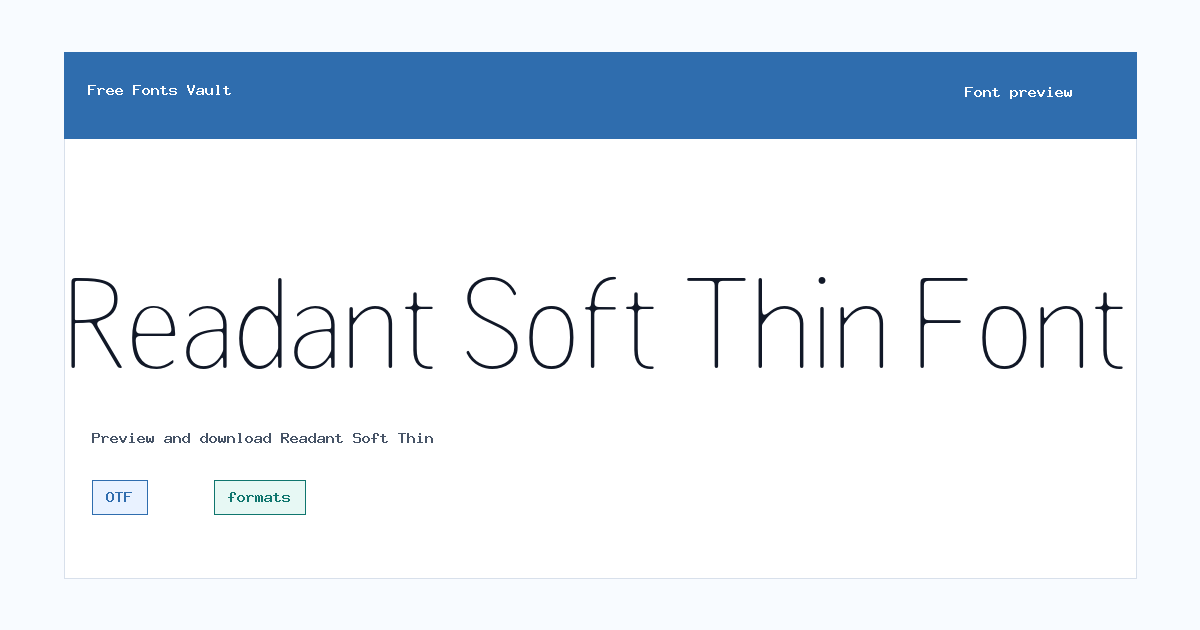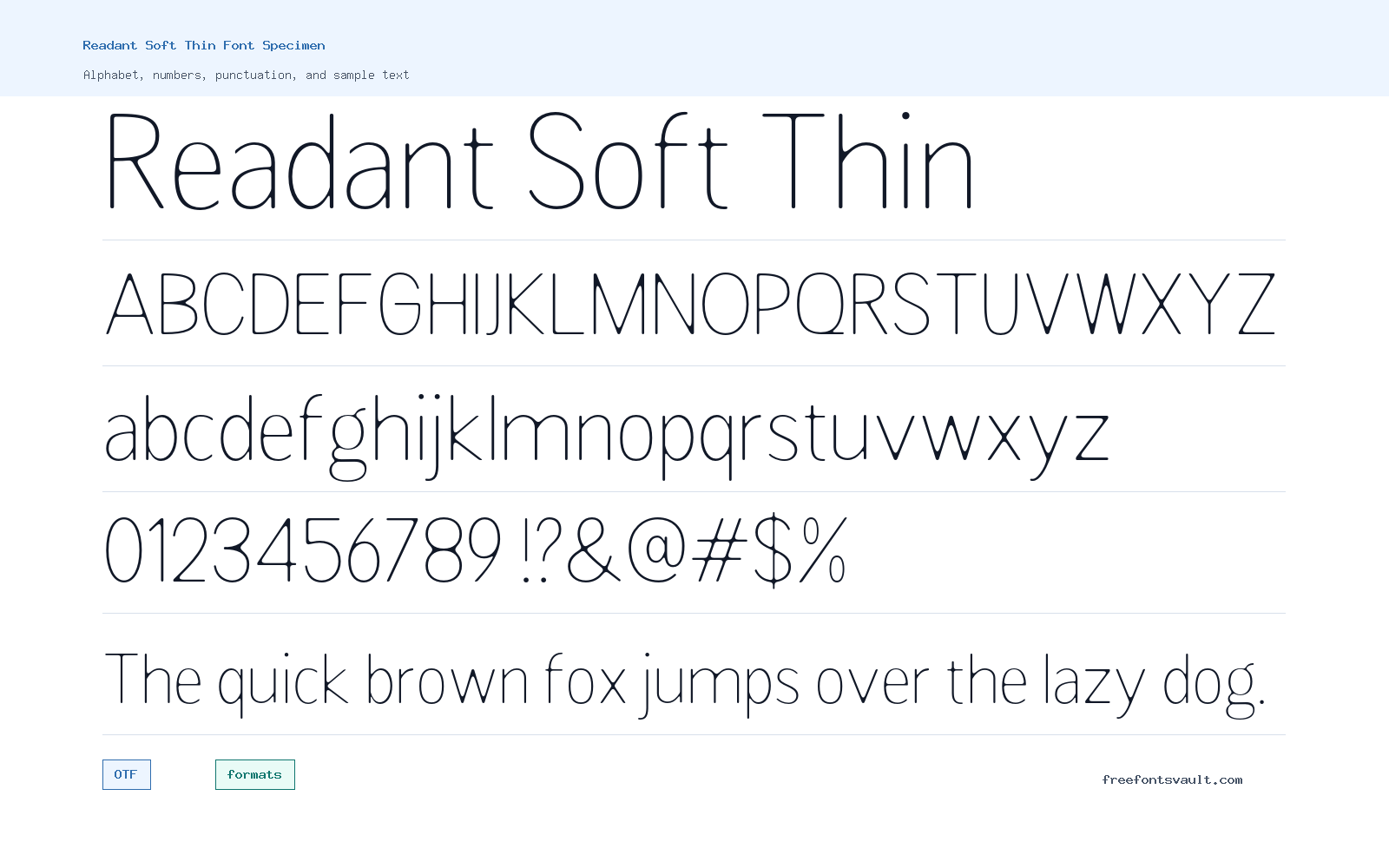
Readant Soft Thin
- Designer Rastype
Readant Soft Thin font.
Readant Soft Thin is a very light sans serif style from the Readant family, made for clean text previews, soft headings, and minimal interface-inspired typography.
About Readant Soft Thin
Readant is described in public listings as a contemporary humanist sans serif with open letterforms, warm curves, and refined proportions. This Soft Thin style uses a 100 weight, so it has a delicate, airy look rather than a bold display presence. The thin strokes can feel elegant in short text, especially when there is enough spacing around the letters.
- Thin 100-weight sans serif style with upright and italic OTF files
- Humanist sans serif character with open forms and soft, readable shapes
- Useful for clean headings, UI mockups, web previews, and minimal editorial text
- Italic companion file for emphasis, captions, or secondary text
- Best tested at larger sizes because very light strokes can fade in small text
- Minimal website headings and landing page mockups
- App UI previews, dashboard labels, and interface concept screens
- Editorial subheads, pull quotes, and clean magazine-style layouts
- Brand presentation drafts that need a light, modern sans serif tone
- Short display text where thin strokes have enough space to remain readable
Public listings connect the Readant family with Muhammad Taufik and Rastype Studio. The local entry names Rastype, so the safest credit is to associate the family with Rastype Studio while keeping detailed authorship cautious.
What kind of font is Readant Soft Thin?
It is a thin-weight sans serif style from the Readant family. The wider family is described as a humanist sans serif with open letterforms and a clean, warm appearance.
Where does Readant Soft Thin work best?
It works best in short, spacious text such as headings, UI mockups, captions, posters, and editorial accents. Avoid relying on it for tiny text unless you have tested readability carefully.